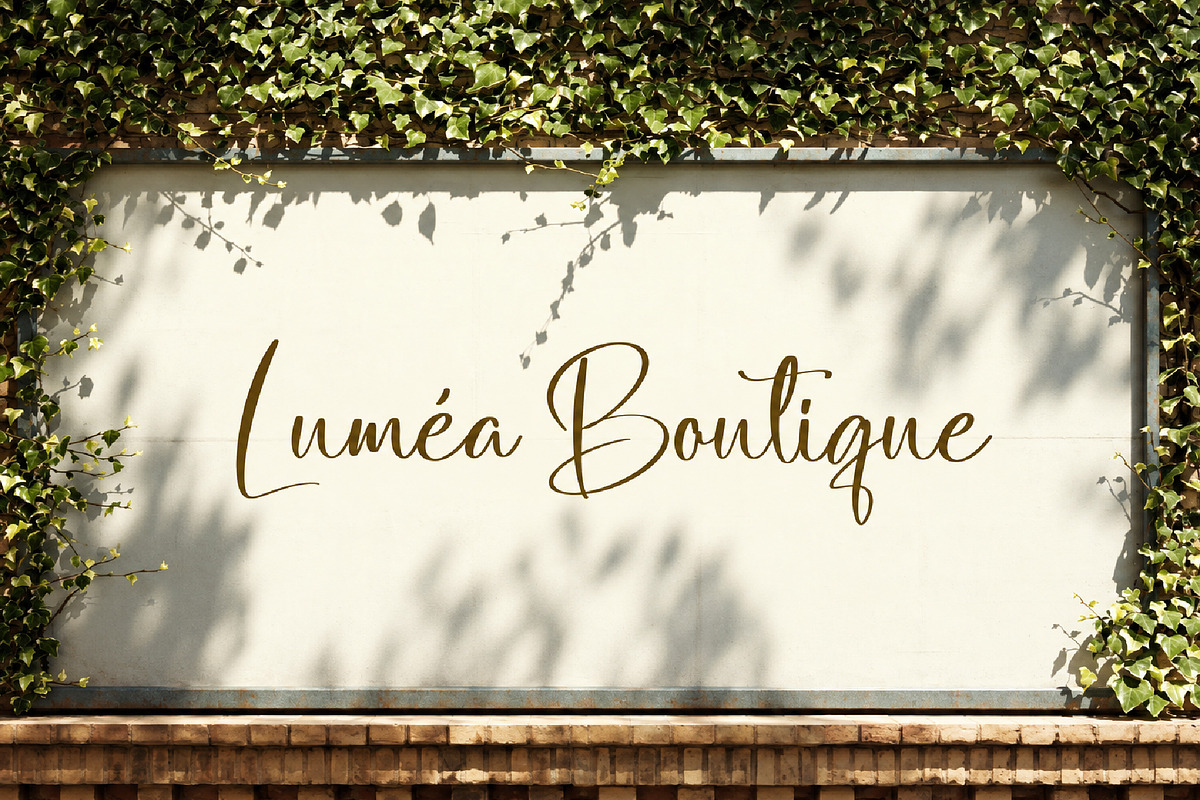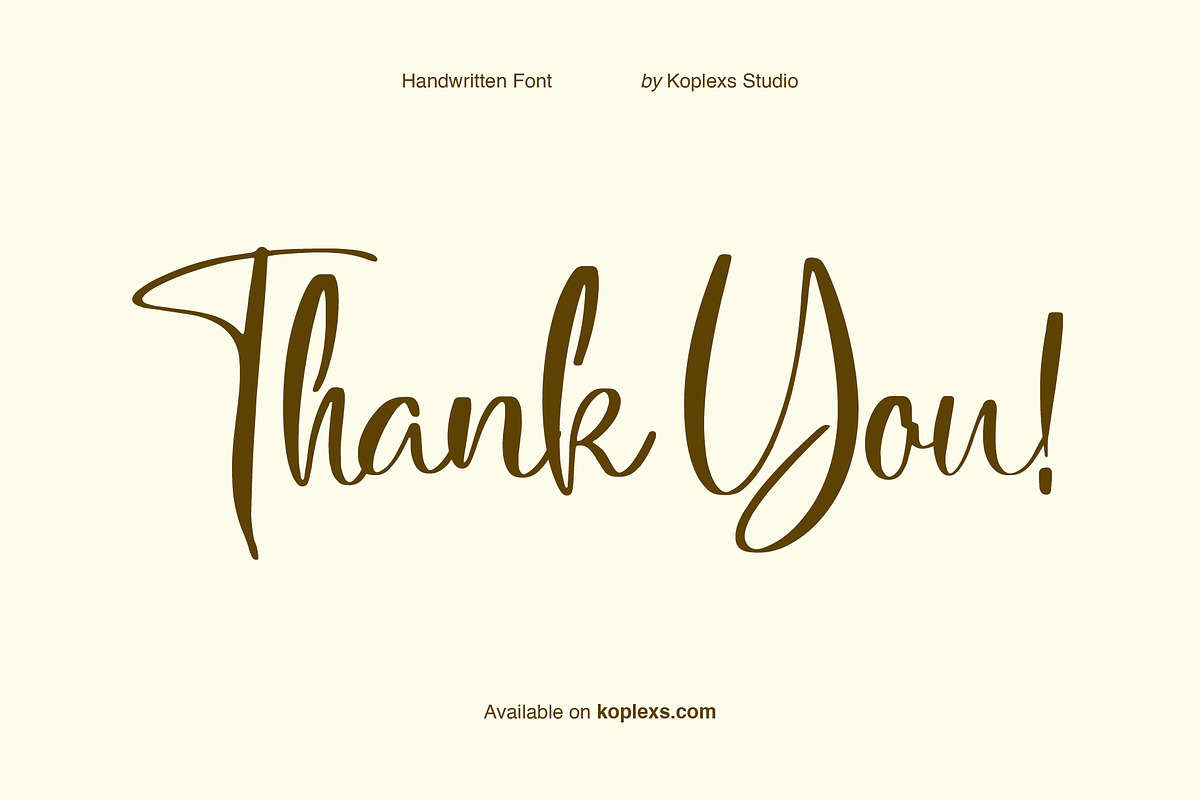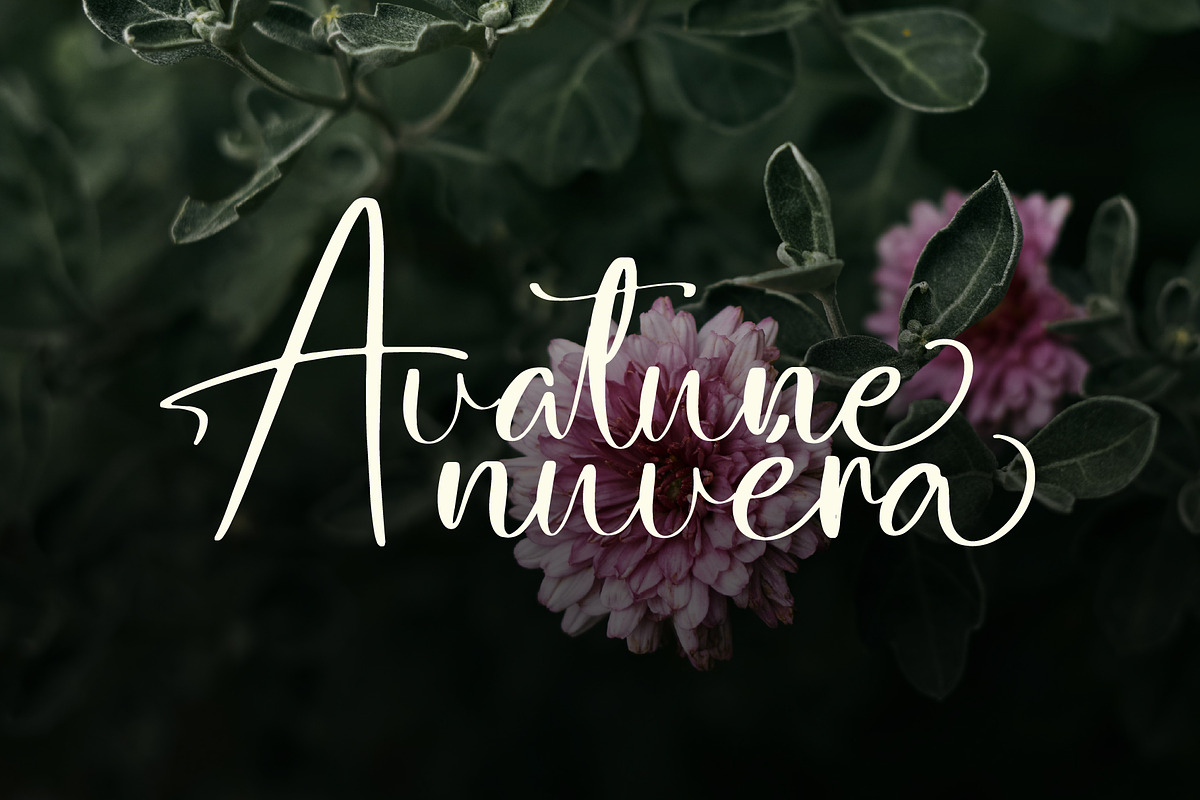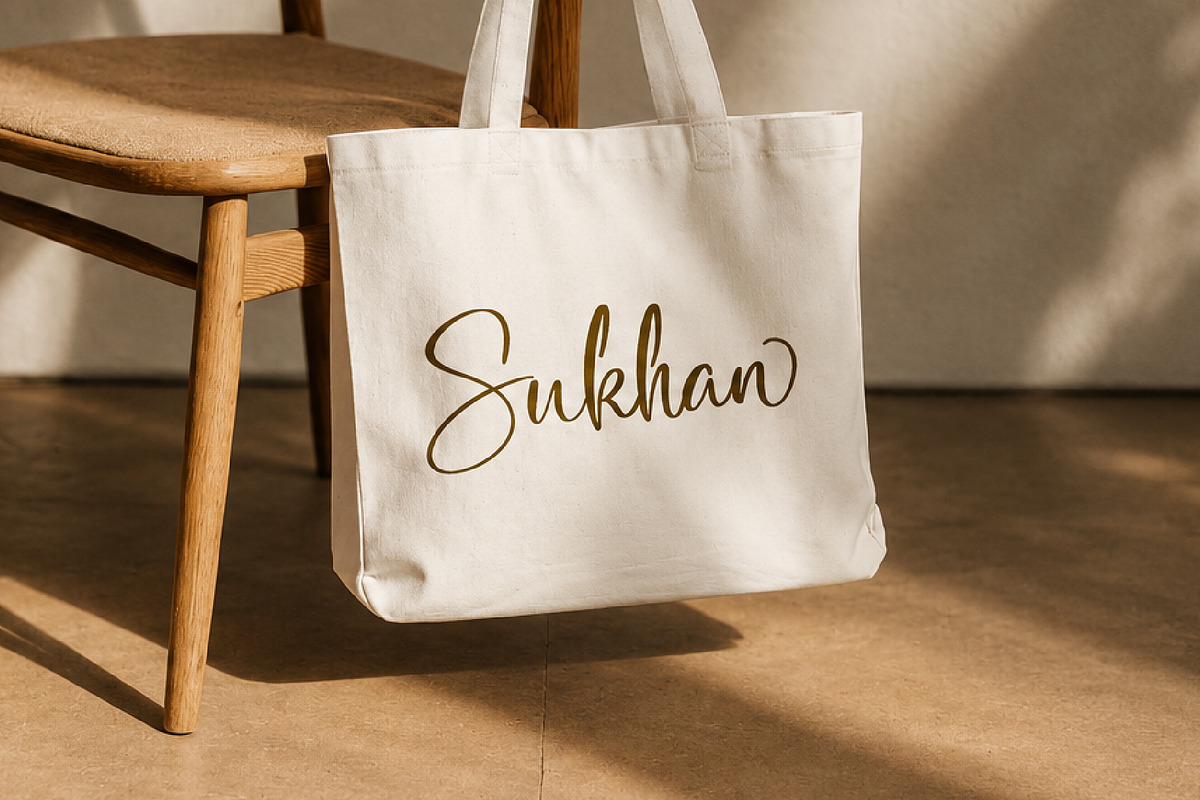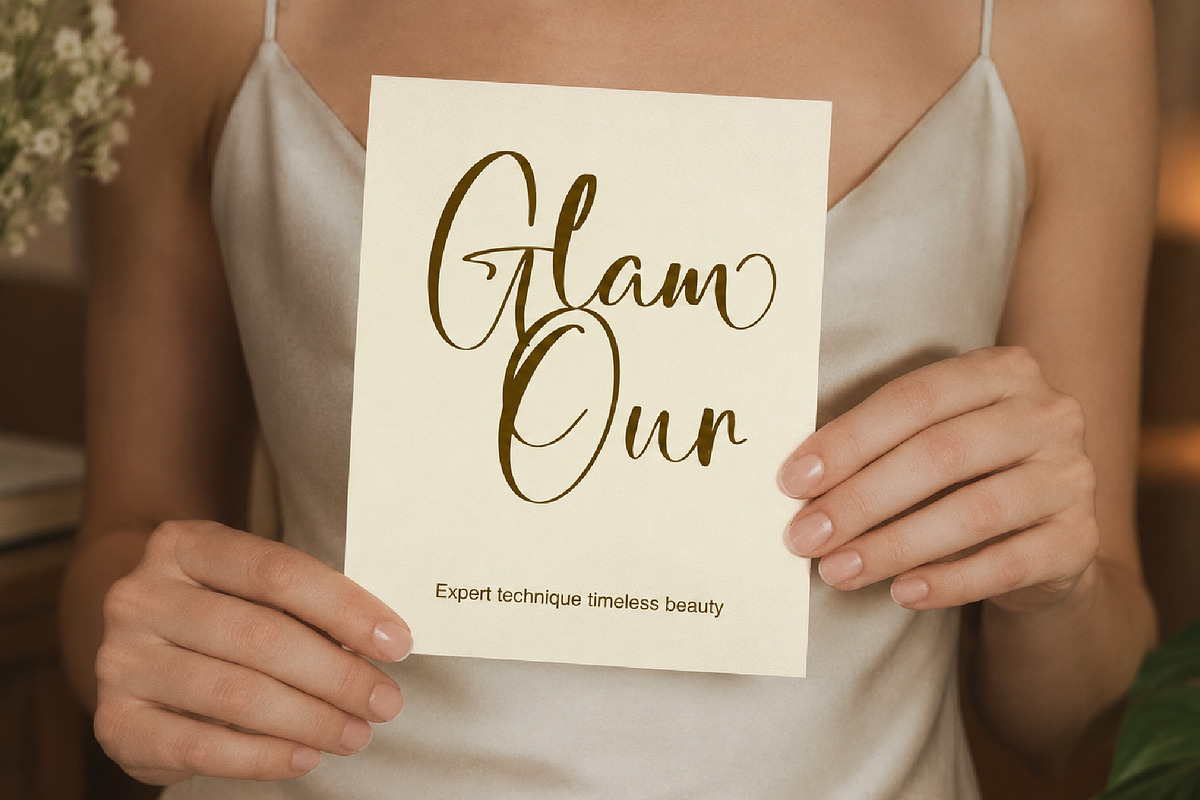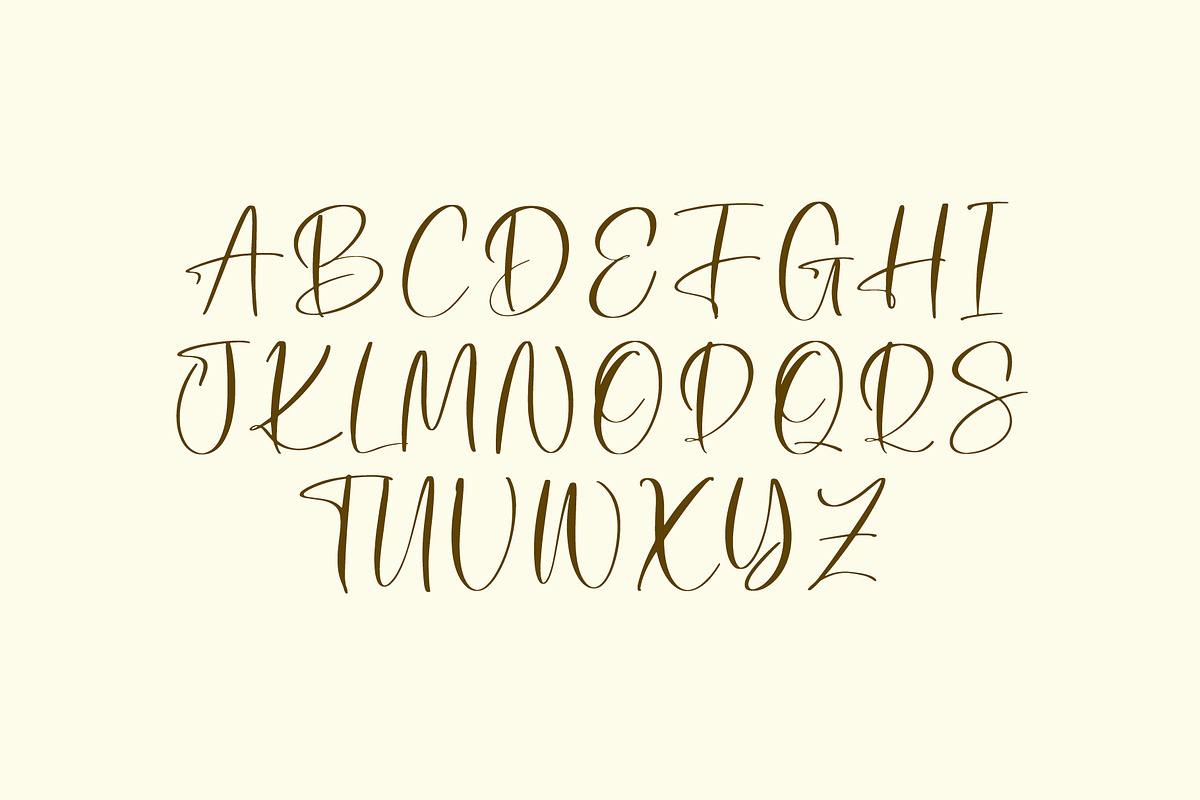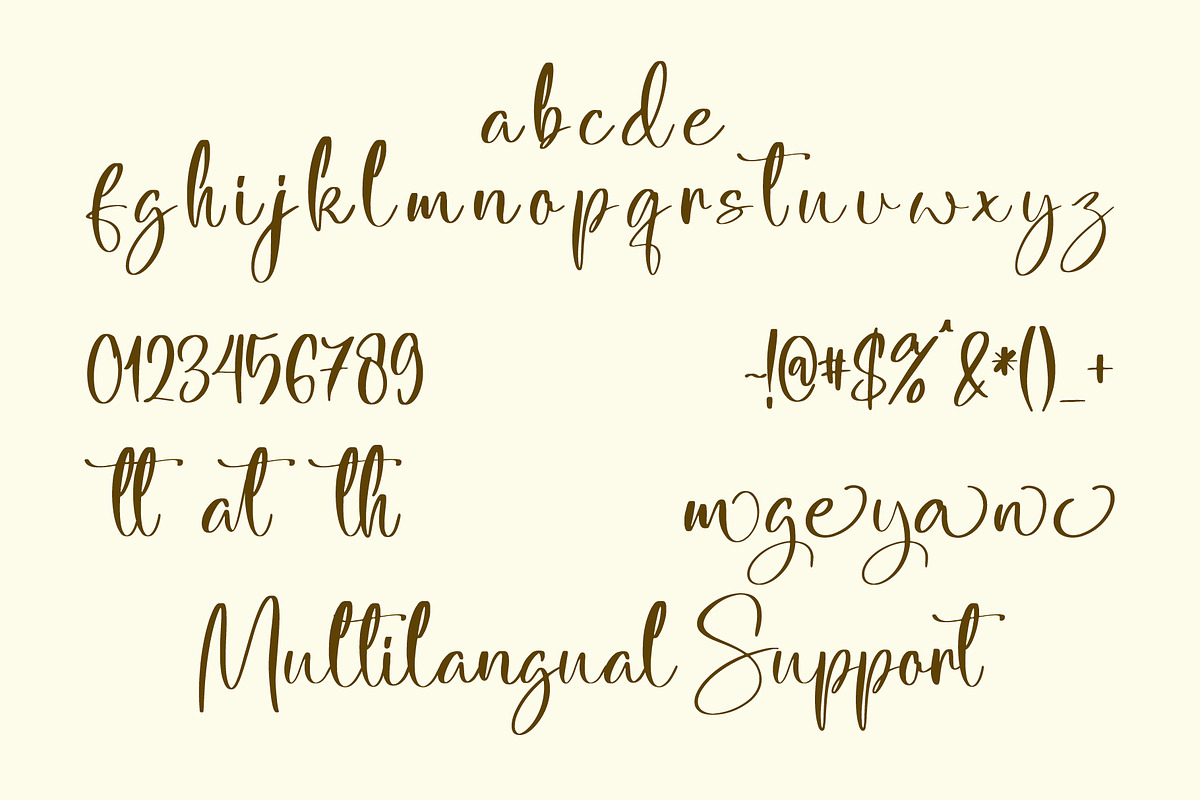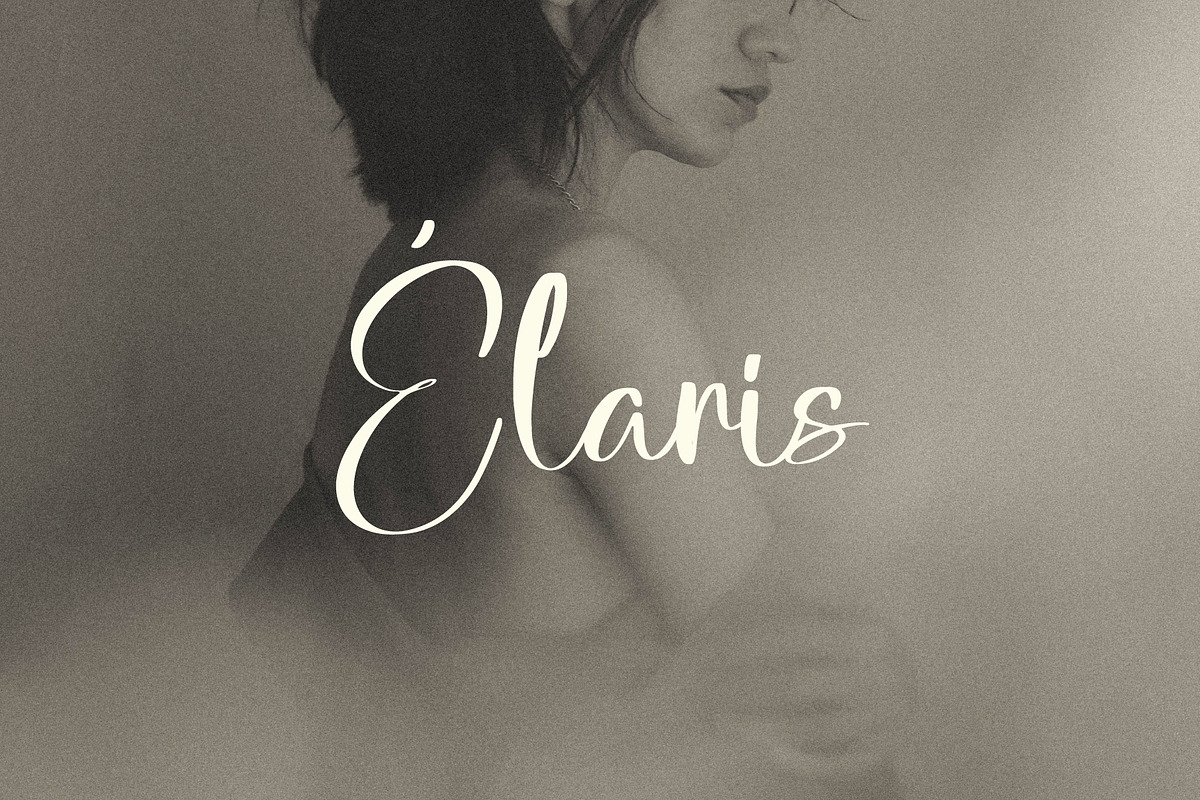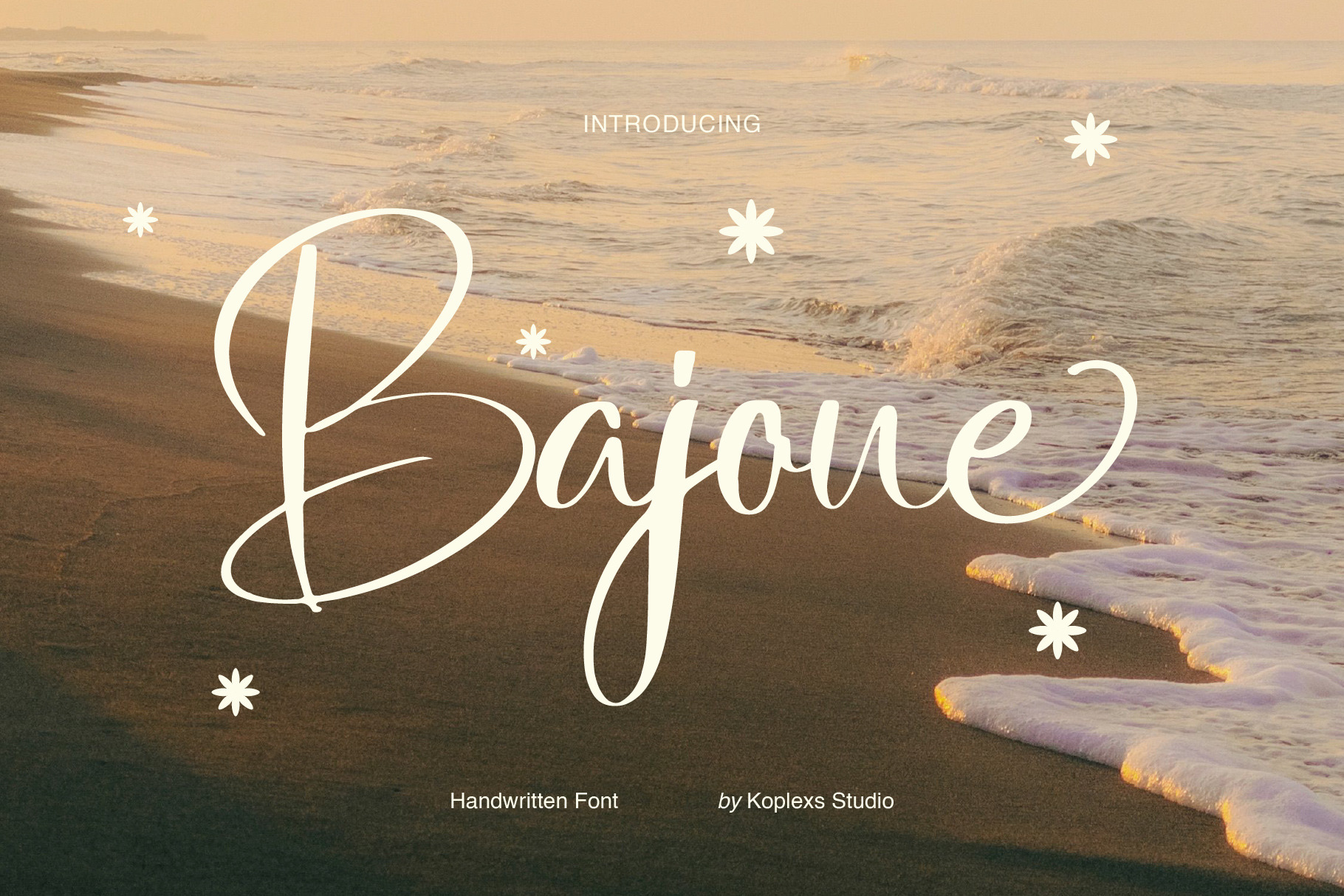
Bajoue | Romantic Wedding Font
Bajoue Font | Elegant Handwritten Script
Give your words a warm, personal touch with Bajoue Font, a handwritten script by Koplexs Studio. Flowing lowercase letters, tall looping capitals, and graceful swashes create an elegant style with a relaxed, romantic feel.
Bajoue balances delicate lines with fuller strokes, giving short phrases a natural rhythm. Its expressive capitals draw attention to the beginning of a name, while curved endings add a soft finishing touch. Picture it on a boutique storefront, a wedding invitation, or a beauty label with plenty of space for the lettering to shine.
alternate and ligatures
Decorative alternates and swash endings
Boutique logos and personal branding
Wedding invitations, place cards, and thank you cards
Beauty packaging and skincare labels
Fashion tags, tote bags, and gift packaging
Photography branding and portfolio titles
Social media graphics and editorial accents
Use Bajoue for names, headlines, and short messages where its curves can become part of the design. Pair it with a simple supporting typeface for smaller details, and give the flourishes room to breathe.
Whether your project feels romantic, understated, or quietly playful, Bajoue brings a handwritten character that makes the lettering feel personal.